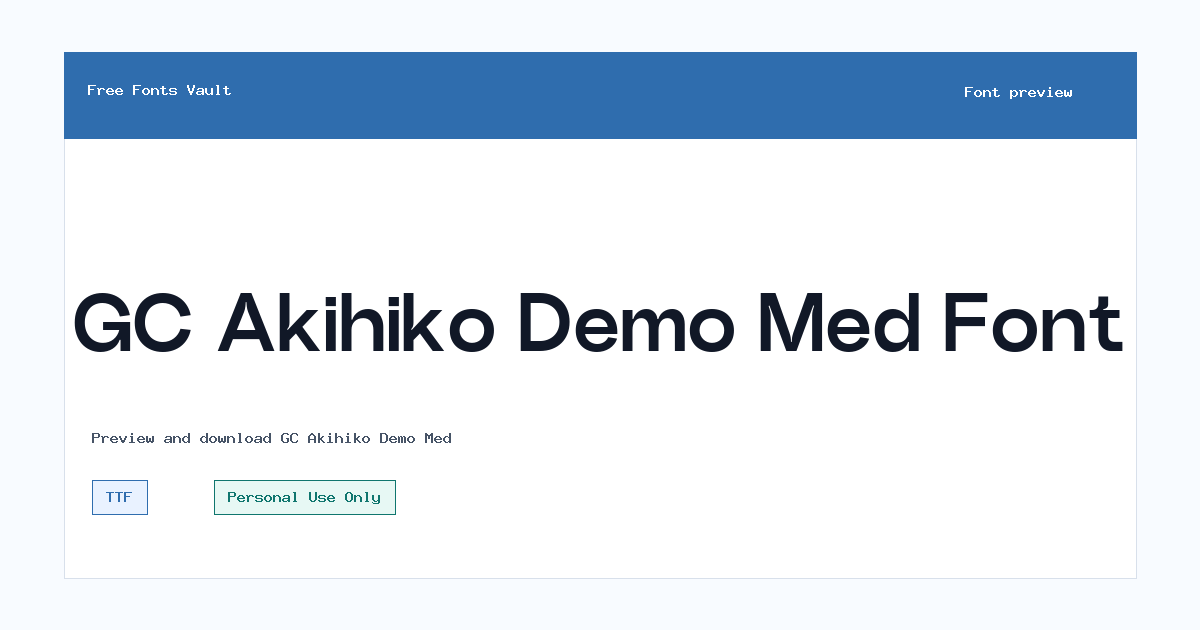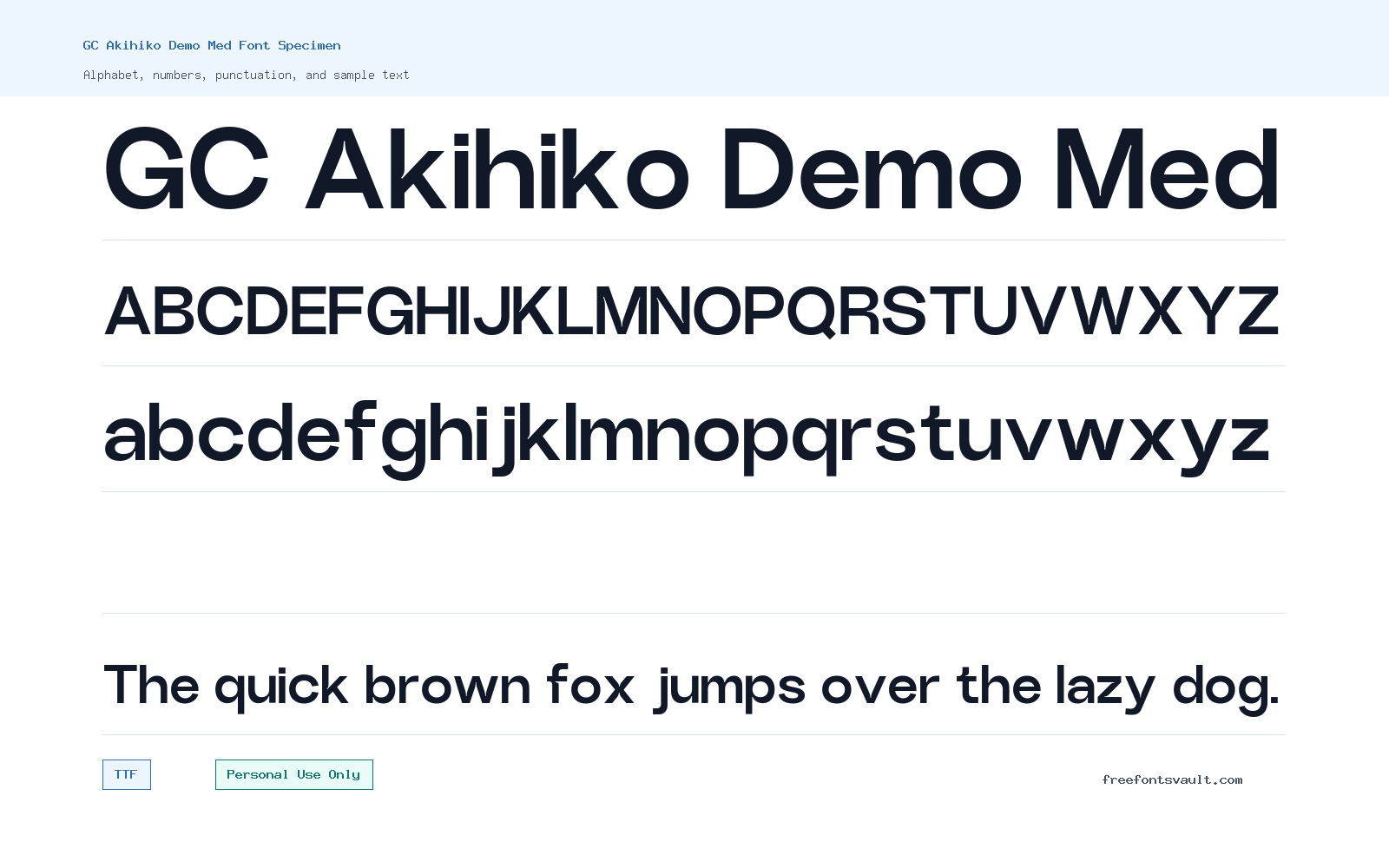
GC Akihiko Demo Med
- Designer Laila Nuzul Maghfiroh of Glyphonic
GC Akihiko Demo Med font.
GC Akihiko Demo Med is a demo font from the GC Akihiko family, presented in a medium weight for visitors who want to test its look in titles, branding drafts, posters, and other personal design experiments.
About GC Akihiko Demo Med Font
GC Akihiko Demo Med is a TTF font file with a normal style and 500 weight, which makes it a practical choice for testing medium-weight text before committing to a larger design direction. The name and license label identify it as a sans serif font, so it is best approached as a clean, modern display option rather than a decorative script or serif face. Because the file is marked as a demo, treat it as a preview font: useful for trying layouts, checking spacing, and seeing whether the tone fits your idea, but not automatically cleared for finished client or commercial work.
For visitors using the preview tool, start with short phrases rather than long paragraphs. Try a brand name, poster headline, menu label, app screen title, or social graphic caption. A medium weight often works well when regular text feels too light but bold text feels too heavy, especially in clean compositions where the type should be readable without shouting. Test uppercase, lowercase, numbers, and punctuation before downloading, since demo fonts may not always contain the full character range needed for every language or project.
In logo work, GC Akihiko Demo Med can be useful during the concept stage when you want a neat sans serif structure and a balanced middle weight. Use it to explore wordmarks, initials, packaging drafts, or simple identity boards, but do not treat the demo file as a final commercial logo asset unless the license owner grants the right to do so. If the font fits your direction, look for the official full version or a commercial license from the creator or foundry before using it in paid branding, merchandise, advertising, or public-facing business material.
For posters and web mockups, keep the layout simple and let the medium weight carry the main message. It can be paired with a quieter body font for descriptions, captions, and longer reading. A classic serif can add contrast, while a neutral sans serif can keep the design minimal. Avoid pairing it with another font that has the same weight, width, and personality, because the result may look accidental rather than intentional. If the headline is set in GC Akihiko Demo Med, make the supporting type clearly lighter, smaller, or more text-focused.
- Medium 500 weight for balanced headlines, labels, and layout tests
- Normal style variant, useful for clean one-weight mockups
- Sans serif identification in the license label, making it suitable for modern, uncluttered compositions
- Personal design mockups
- Logo concept exploration
- Poster headlines
- Website and app interface drafts
- Social media layout tests
- Packaging or label previews
- Short titles and display text
- Typography pairing experiments
GC Akihiko Demo Med is credited to Laila Nuzul Maghfiroh of Glyphonic, with Glyphonic listed as the foundry.
What weight is GC Akihiko Demo Med?
The listed weight is 500, commonly understood as a medium weight. It is useful when you want more presence than a regular weight without moving into a heavy bold style.
Is GC Akihiko Demo Med good for long paragraphs?
Use the preview tool before setting long text. Based on the demo file and medium display weight, it is safer to start with short text such as headings, labels, and title treatments.
Who designed GC Akihiko Demo Med?
The font is credited to Laila Nuzul Maghfiroh of Glyphonic.
What should I pair with GC Akihiko Demo Med?
Pair it with a simpler body font that is clearly lighter or more text-focused. A readable serif can add contrast, while a neutral sans serif can keep the design clean.